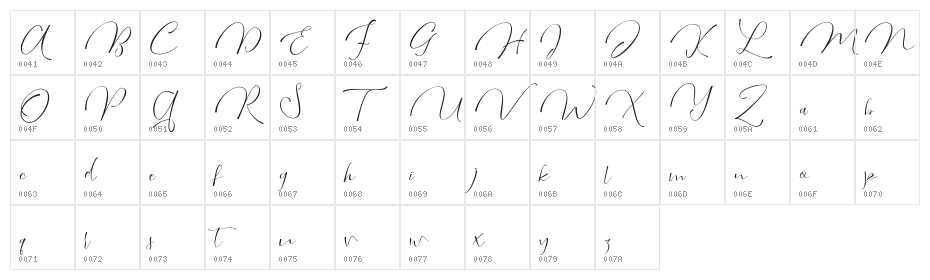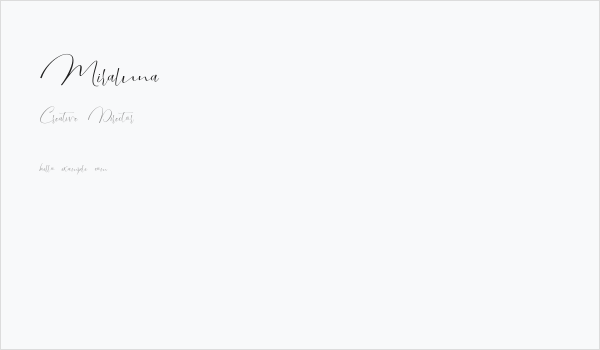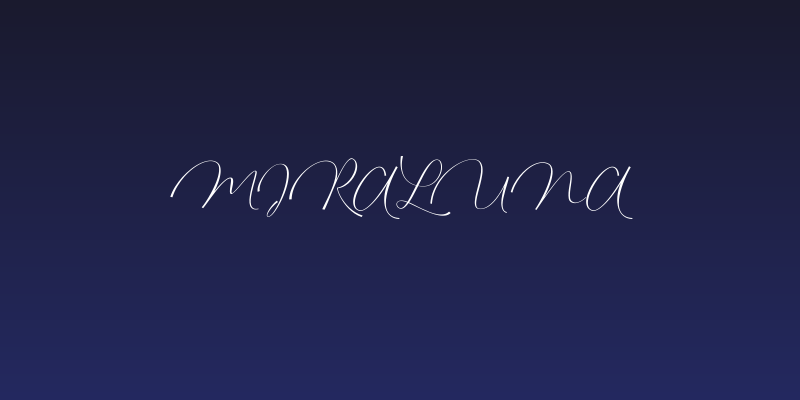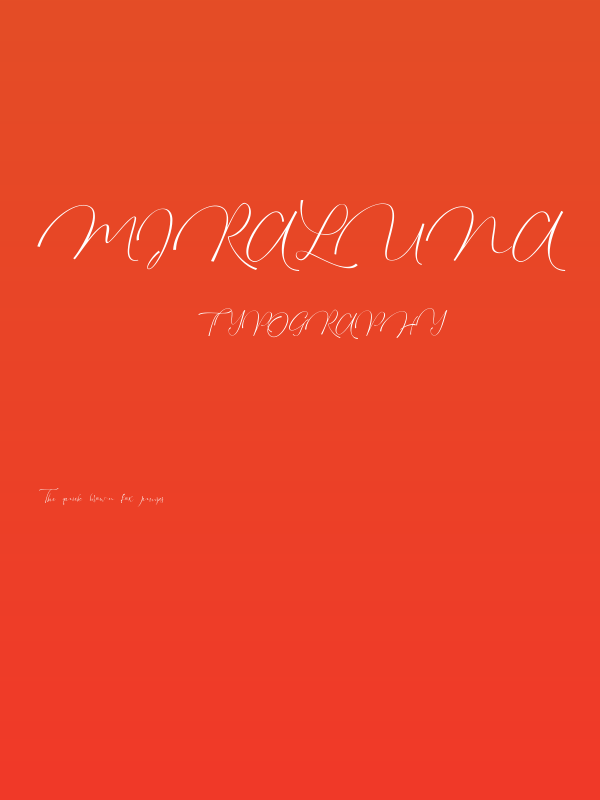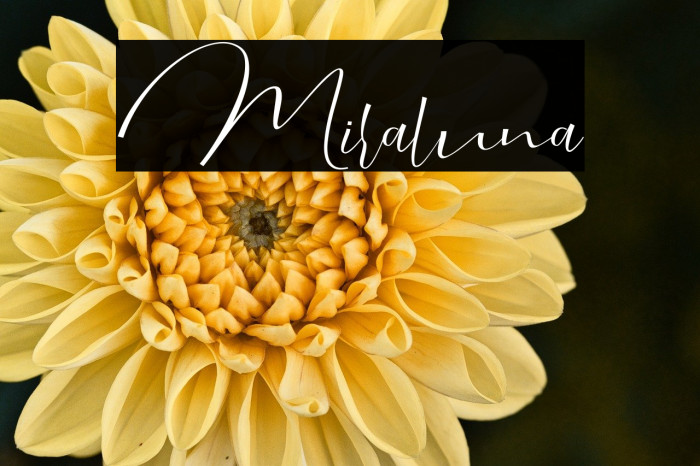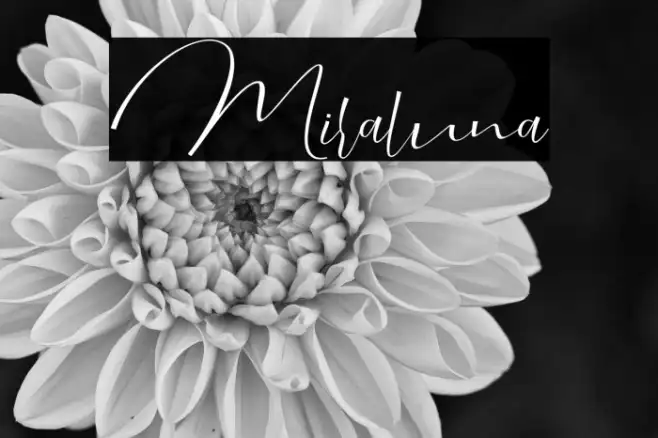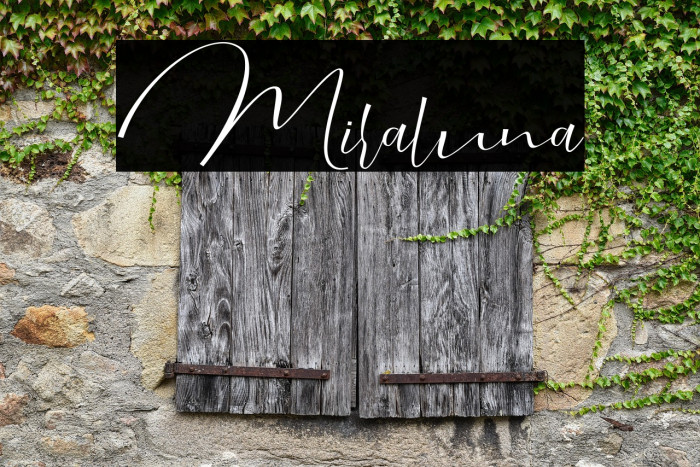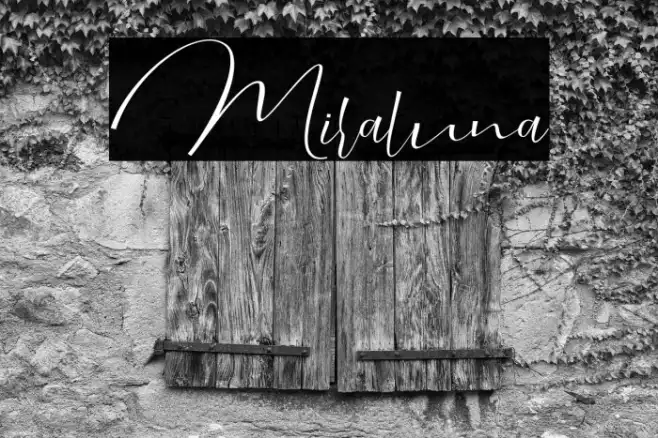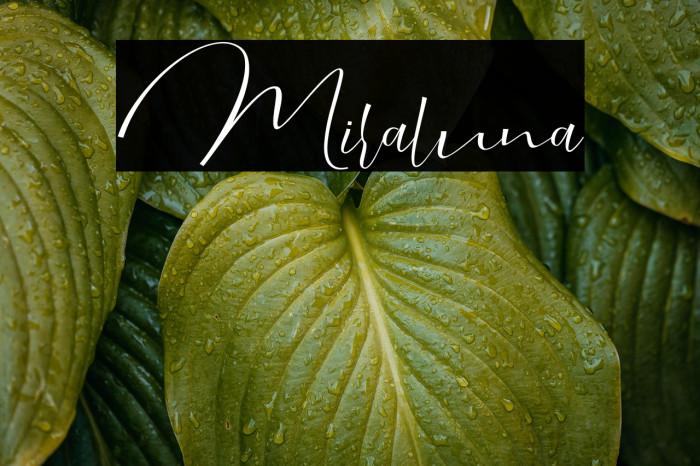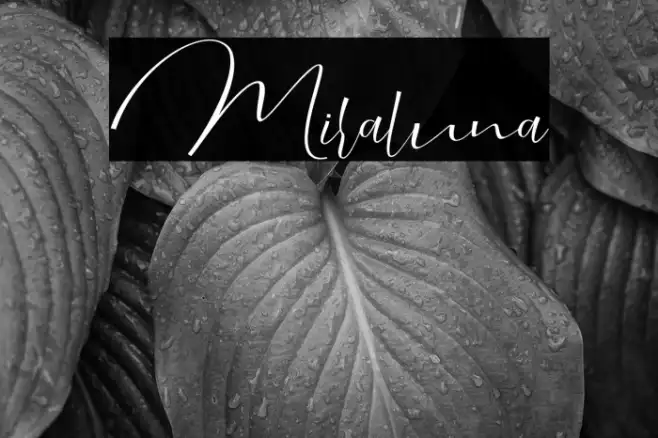
Miraluna Font
Miraluna Description
This elegant script font features flowing, interconnected letters that exude a sense of grace and sophistication. The characters are delicately crafted with thin, sweeping lines that create a sense of fluidity and movement. The uppercase letters are particularly ornate, with intricate loops and flourishes that add a touch of luxury. The lowercase letters maintain a consistent style, with smooth curves and a slightly more restrained design. This font's overall appearance is both refined and artistic, making it ideal for projects that require a personal, handwritten touch.
| Overall Style | Elegant, Artistic |
| Use Case | Logos, Invitations, Personal stationery |
| Proposed Projects | Ideal for wedding invitations, elegant branding, personal stationery, and artistic projects. |